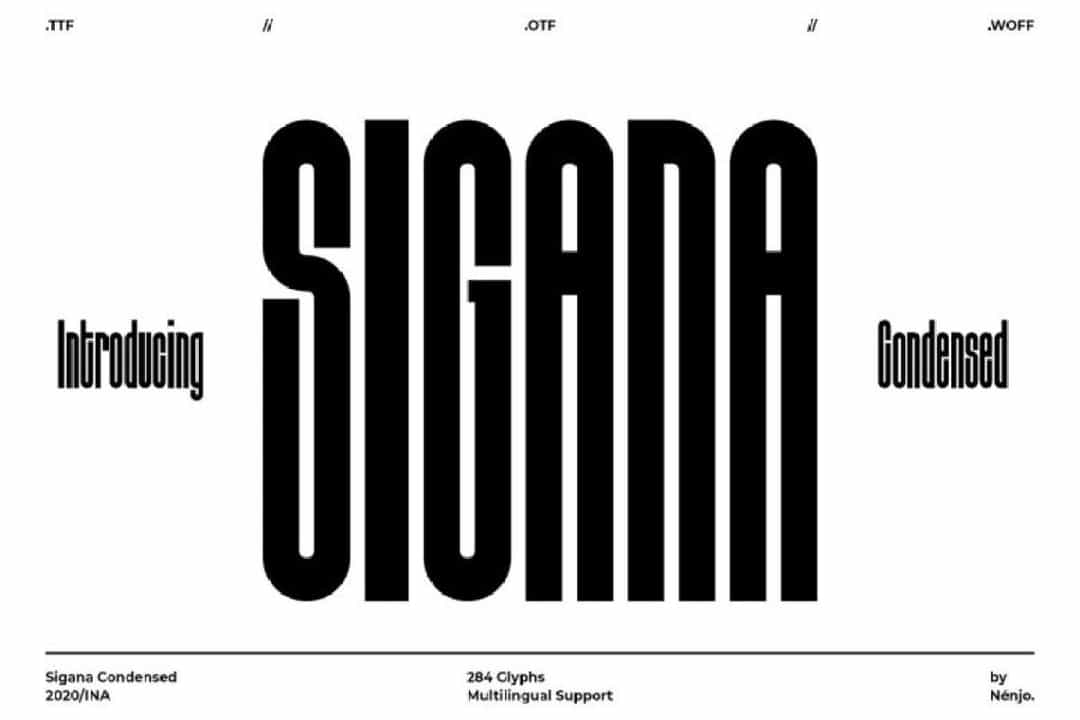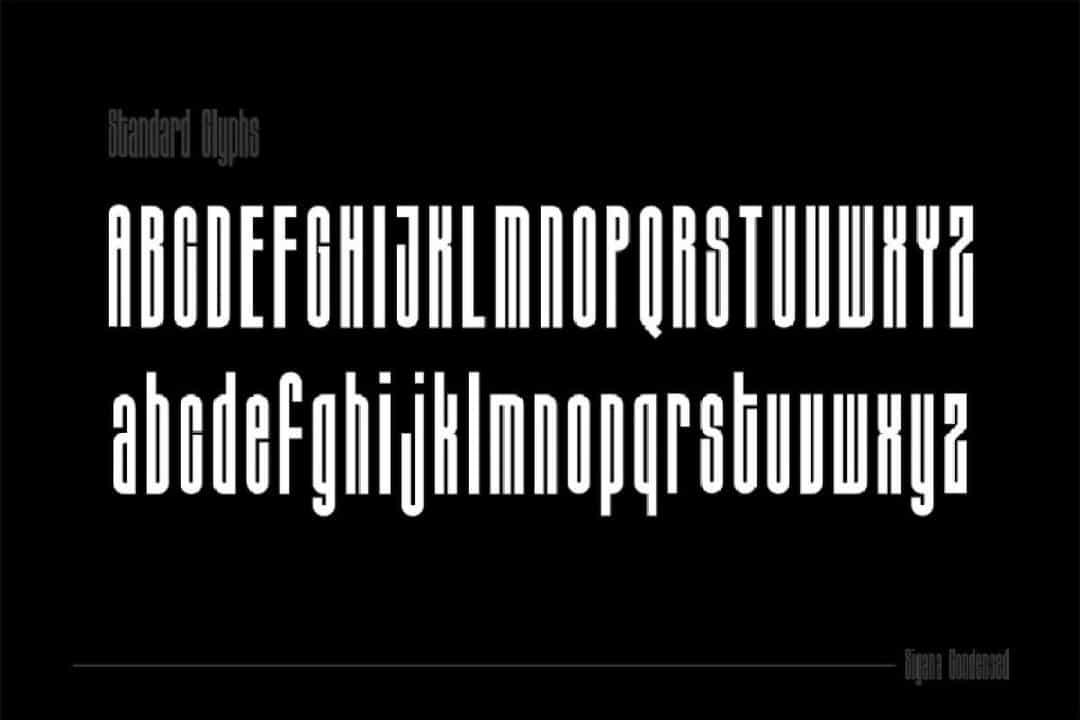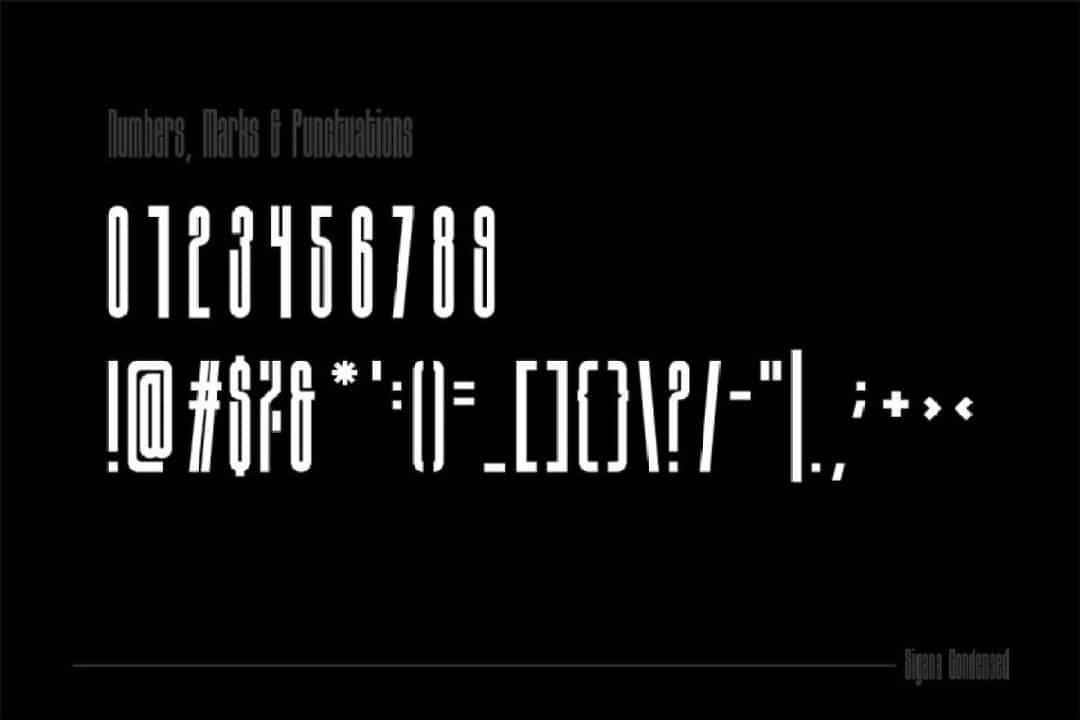
Sigana Condensed was drawn particularly for use in display texts. With its tall but simple structure, Sigana can give a contemporary minimalism to almost all the design projects that you will apply it to. Suits for badges, logos or insignias for headings of packaging, posters, t-shirt, apparels, greeting cards, wedding cards!